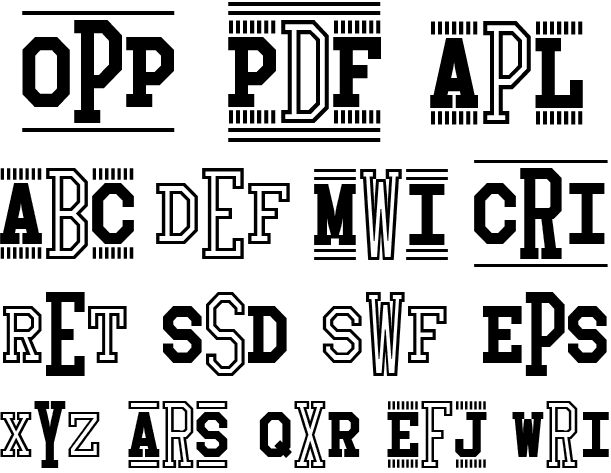
Collegiate Monograms Three
COLLEGIATE MONOGRAMS THREE is a set of fonts that lets you make custom 3-letter monograms in that distinctive angular style that says college team. There are Solid and Outline fonts, plus 2 Mixes for your convenience. A choice of decorative elements is included to finish off your custom monogram.